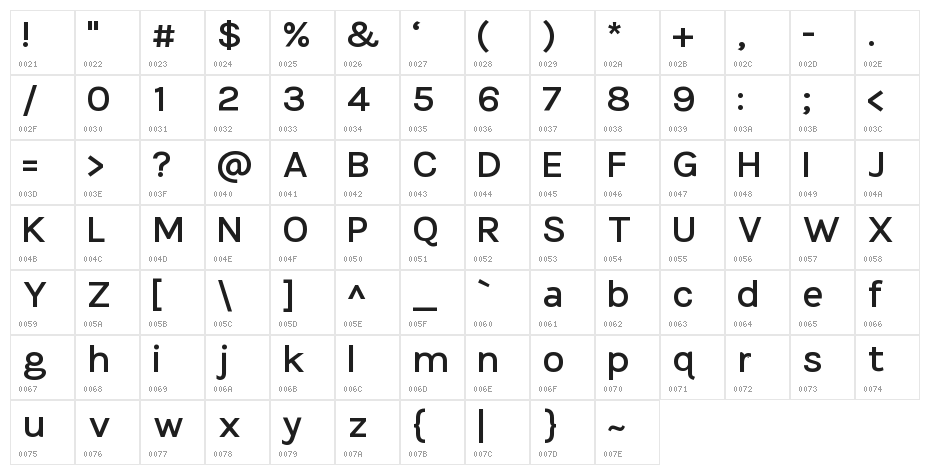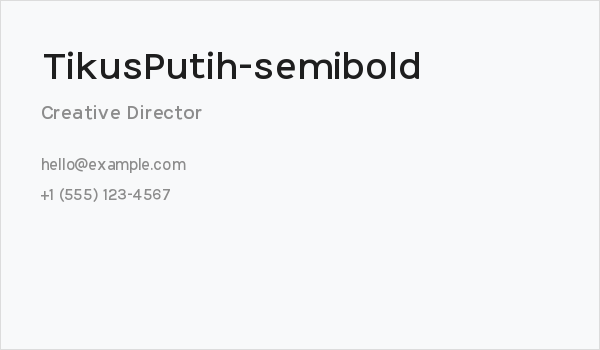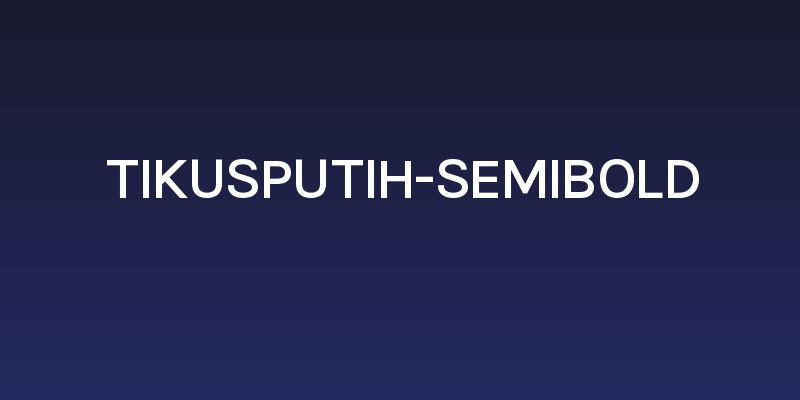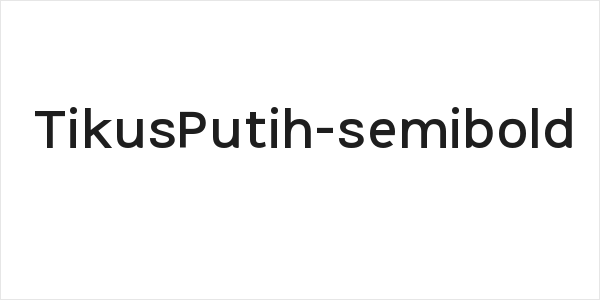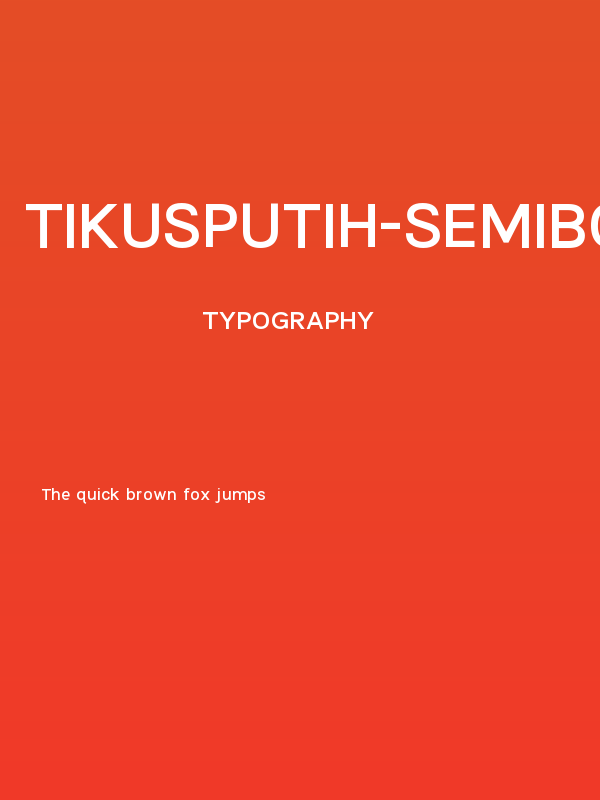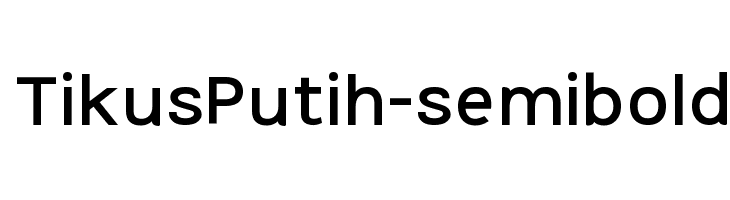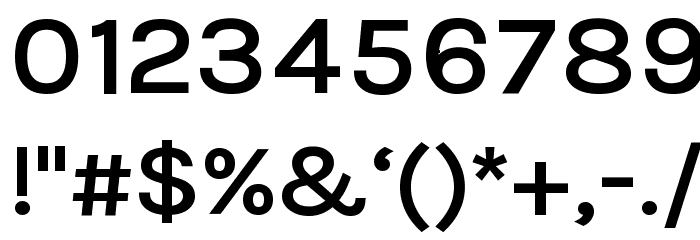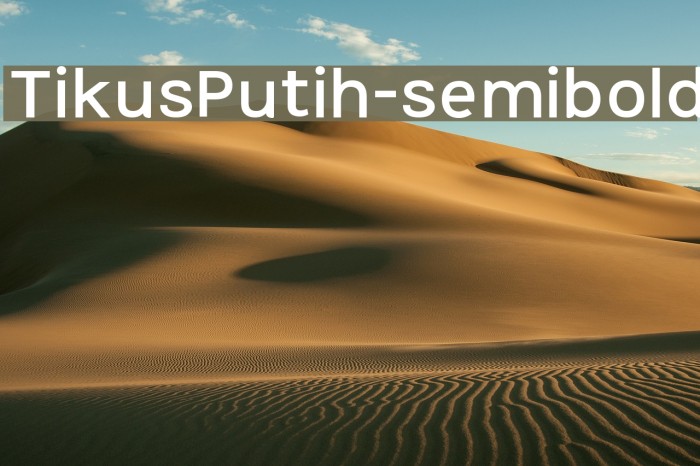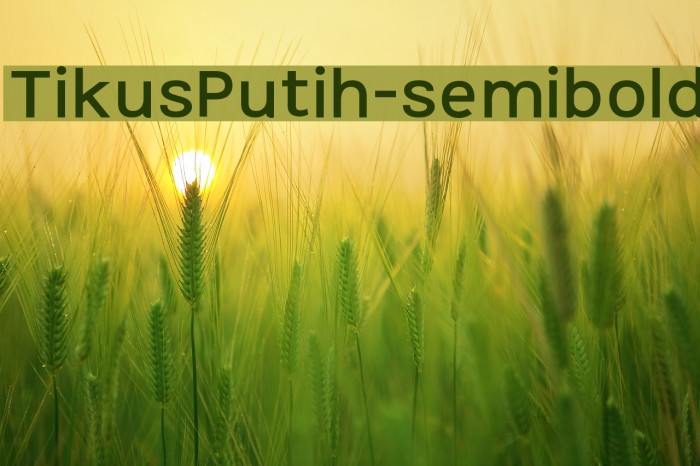
TikusPutih-semibold Font
TikusPutih-semibold Description
This font features a clean and modern sans-serif design, characterized by its straightforward and geometric letterforms. The uppercase letters are bold and commanding, while the lowercase letters maintain a consistent and harmonious appearance. The numerals are clear and easily distinguishable, making them suitable for a variety of applications. Special characters are well-integrated, maintaining the overall aesthetic of the font. The design is versatile, offering a professional and contemporary look that is both functional and visually appealing.
| Use Case | Headlines, Body text, Logos |
| Proposed Projects | Ideal for branding, advertising, digital interfaces, and editorial design. |